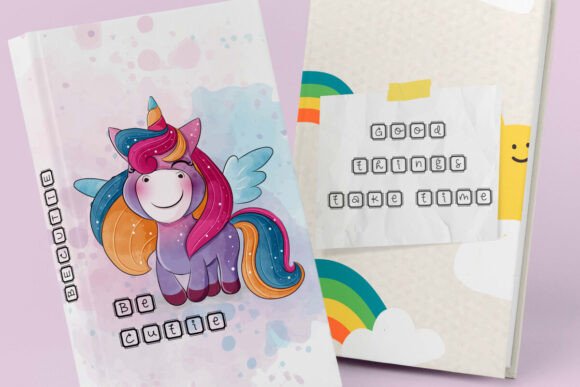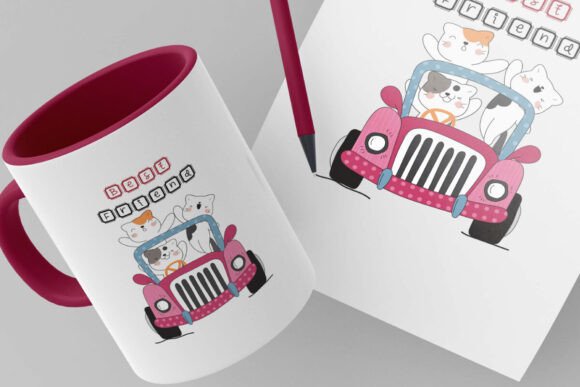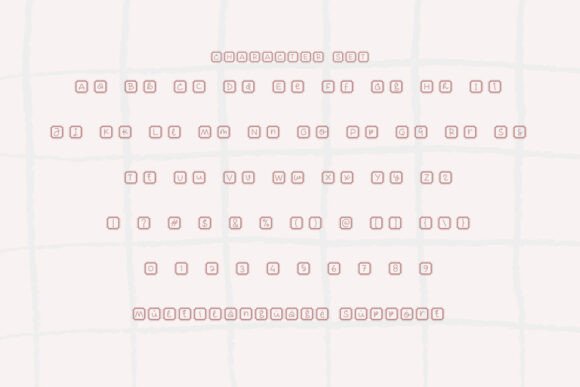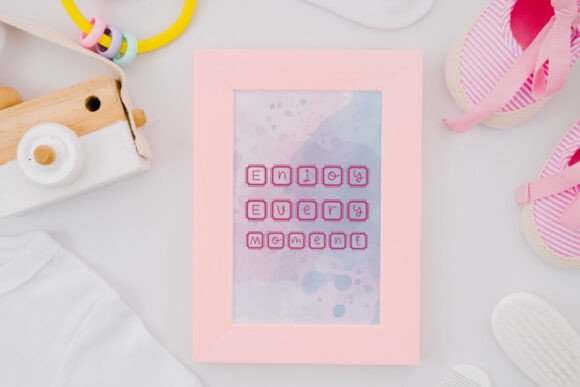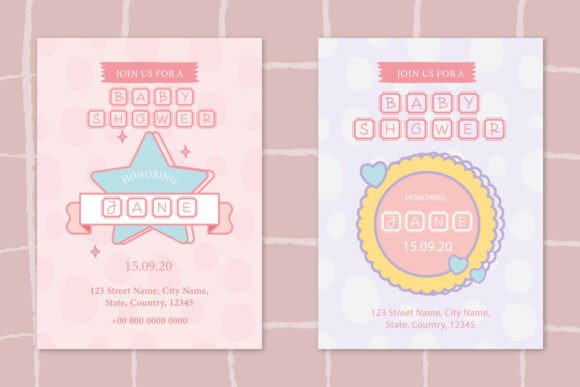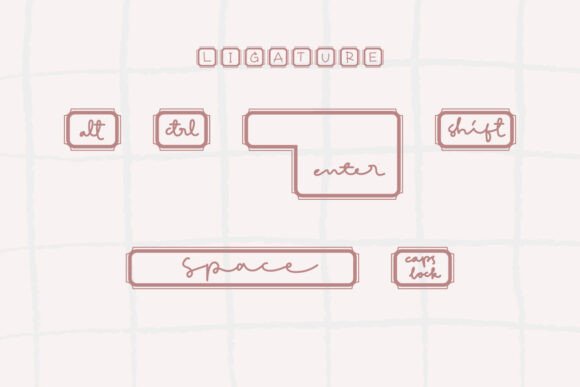
Introduction to Cute Keyboard Font
Who hasn’t been there – staring blankly at a blank canvas, trying to come up with the perfect design concept for a project? The frustration can be real, but the spark of creativity that strikes when you least expect it can be pure magic. For designers, it’s all about finding that unique touch that sets their work apart from the rest. Enter the Cute Keyboard Font – a delightful, playful, and adorable font that’s sure to add a touch of whimsy to any creative project.
With its distinctive block-letter design and transparent background, the Cute Keyboard Font is a design resource that’s both high-quality and free to download. Whether you’re working on a billboard, a brand logo, or a business card, this font is the perfect addition to any design. Its versatility and cute charm make it a valuable asset for designers looking to add a little extra something to their work.
Cute Keyboard Font
- Unique Keyboard-inspired design: The font features a distinctive keyboard layout, making it perfect for creative projects that require a touch of nostalgia and whimsy.
- Transparent background: This allows designers to easily layer the font over other design elements, creating a seamless and high-quality visual experience.
- Perfect for creative projects: The Cute Keyboard Font is ideal for designers working on creative projects, such as graphics, logos, and other visual elements, where a unique and playful design is required.
Honest Review: Cute Keyboard Font
As a designer, I’m always on the lookout for high-quality design resources to elevate my creative projects. Recently, I came across the Cute Keyboard Font, and I must say it’s been a pleasant surprise.
- ✨ The font is incredibly detailed and has a delightful retro aesthetic that’s perfect for projects that require a touch of nostalgia.
- ✨ The transparent background feature is a great bonus, allowing me to easily customize the font to fit my design needs.
- ⚠️ The font may not be suitable for projects that require a highly professional or corporate tone, as it has a more playful feel.
Overall, I’m impressed with the Cute Keyboard Font’s potential for adding a unique touch to my creative projects. While it may not be the best fit for every design need, it’s certainly a valuable resource to have in my arsenal.
Cute Keyboard Font
The Cute Keyboard Font is a unique and playful design resource perfect for creative projects. Its high-quality design makes it ideal for various applications, from graphics to digital art.
Tips for Getting the Most Out of Cute Keyboard Font
To maximize the impact of the Cute Keyboard Font, use it in combination with other design elements, such as bold colors and creative textures.
The Cute Keyboard Font is perfect for:
- Children’s book covers and illustrations
- Graphic novels and comics
- Blog posts and social media graphics
Conclusion
Can I customize Cute Keyboard Font to fit my design needs?
Cute Keyboard Font is a high-quality font that can be customized to fit your design needs. You can use font editors or design software to modify the font, change its size, color, or even create a transparent background to make it blend seamlessly with your design. However, please note that modifying the font may affect its quality and compatibility.